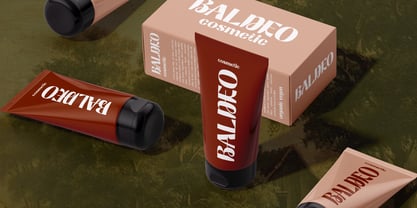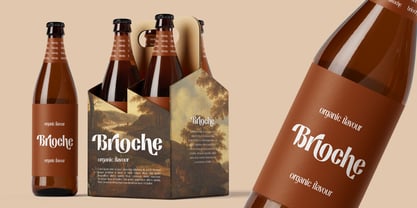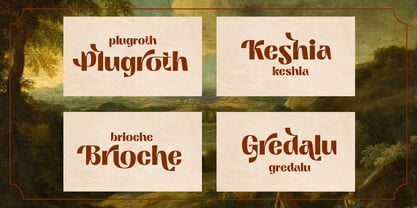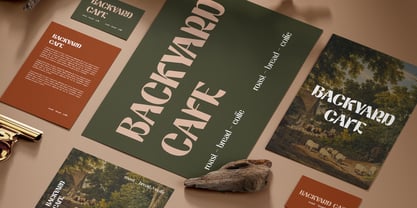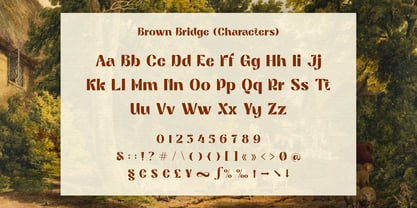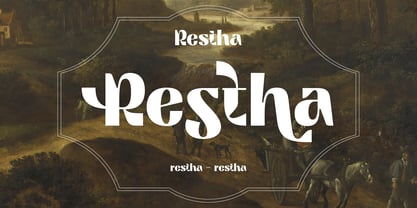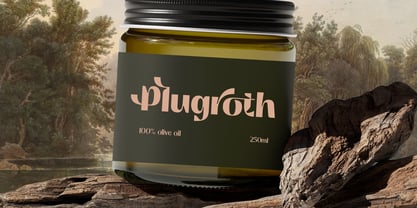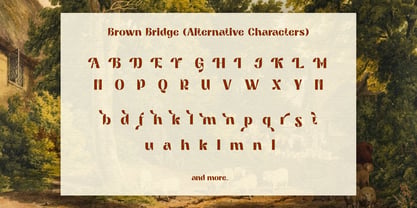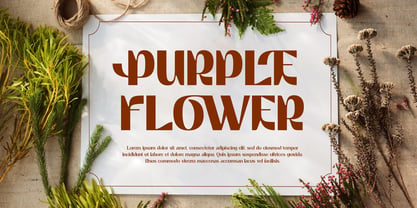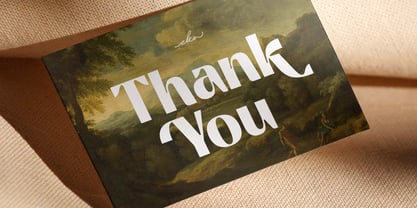
Brown Bridge
by Ekahermawan
The Brown Bridge Font Family was designed by Putu Eka Hermawan and published by Ekahermawan. Brown Bridge contains 4 styles and family package options. More about this family
BROWN BRIDGE — Elegant Art Deco Display Font. Step into timeless sophistication with BROWN BRIDGE, a luxurious Art Deco-inspired display font that blends classic elegance with modern flair. Designed to captivate, this font brings a sense of vintage glamour and refined boldness to every design it touches. BROWN BRIDGE is perfect for branding, editorial designs, packaging, invitations, posters, and luxury logos. Whether you’re creating for fashion, lifestyle, or high-end products, this font adds a distinct touch of class and creativity. BROWN BRIDGE includes four font weights from Thin to Bold, featuring elegant stylistic alternates and ligatures, complete uppercase and lowercase sets, and multilingual support for Western and Central European languages. It performs beautifully across both print and digital projects, giving your designs a distinctive voice and timeless appeal. Bring your creations to your designs with BROWN BRIDGE, where vintage charm meets modern elegance.